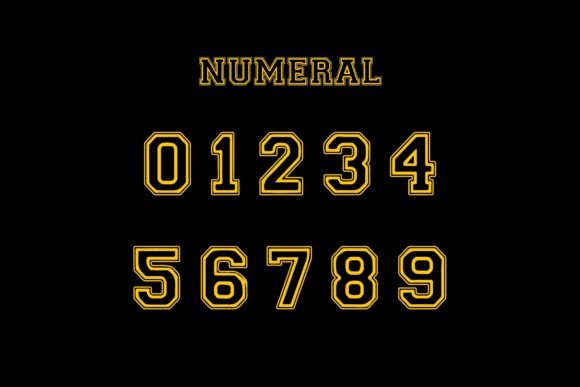
Outline Varsity Font
Outline Varsity is a cool and modern display font, inspired by classic sport-style typefaces. Add it confidently to your projects and you will love the results!